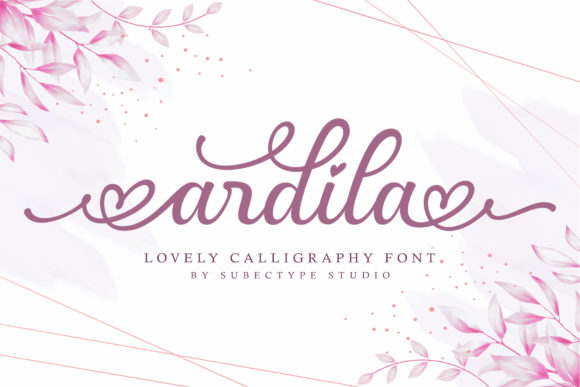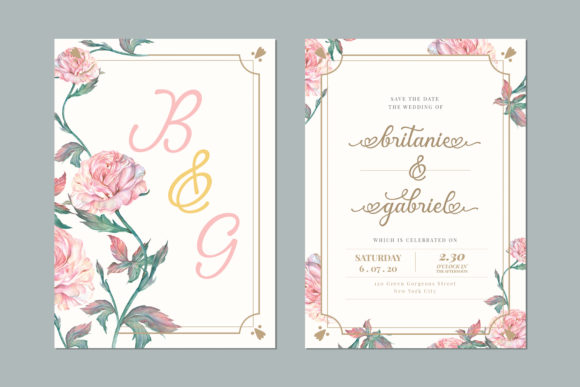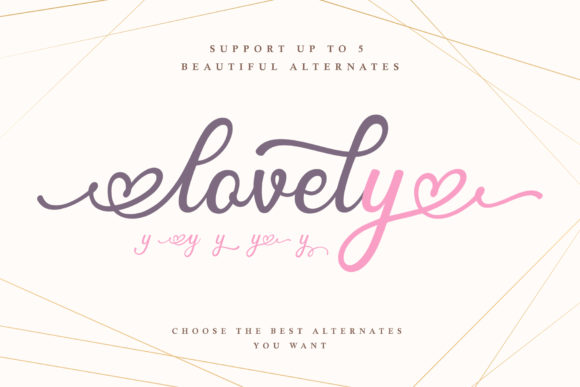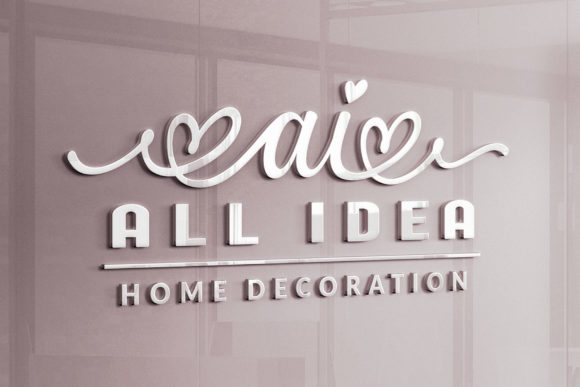
Ardila Font: Romantic Calligraphy Font for Wedding Invitations & DIY
About the Ardila Font
Experience the unique personality of Ardila Font, a font designed for impact. Ardila feels lovely and romantic and makes an outstanding calligraphy font. It features incredibly whimsical heartsy swashes that will add a decorative touch to any craft design in an instant,
Ardila’s whimsical charm makes it ideal for projects requiring a touch of romantic flair, such as wedding invitations, greeting cards, or branding for businesses focused on beauty, fashion, or artisanal goods. It excels in headlines, short text blocks, and decorative elements on packaging. However, its ornate nature makes it unsuitable for body text or UI elements where readability is paramount. Avoid using it for lengthy paragraphs or applications requiring high levels of legibility.
Pairing Ardila with a clean sans-serif like Montserrat or Lato provides a sophisticated contrast, balancing its playful energy with modern clarity. For a more traditional feel, consider a serif font such as Playfair Display or Merriweather; their classic elegance complements Ardila’s romantic spirit. Using Ardila sparingly, as an accent, will maximize its impact.
Ardila projects a distinctly feminine and romantic personality, conveying feelings of warmth, affection, and handcrafted quality. Its overall mood is lighthearted and playful, but retains a level of elegance suitable for upscale branding.